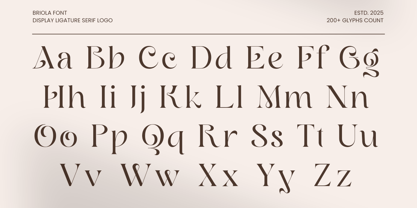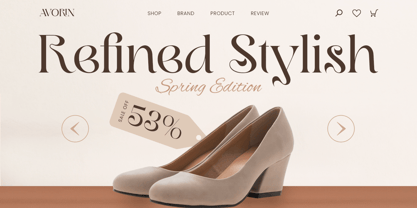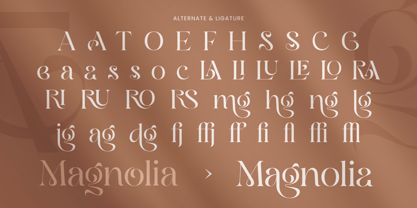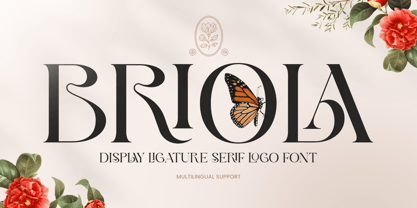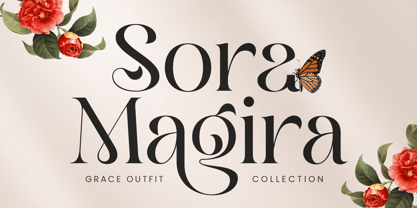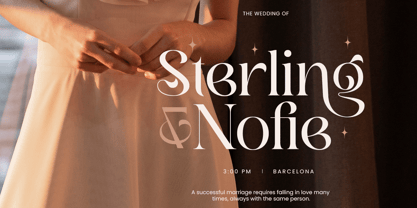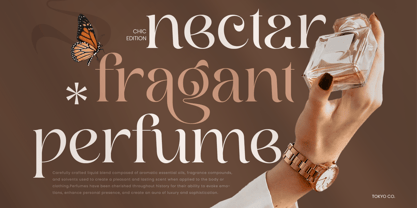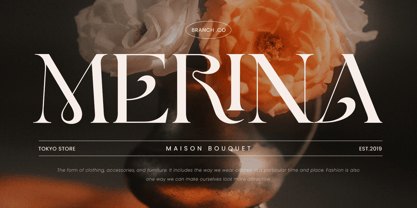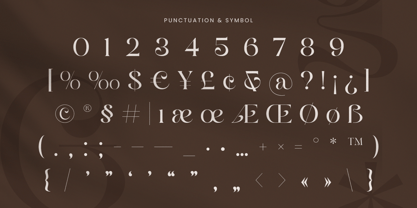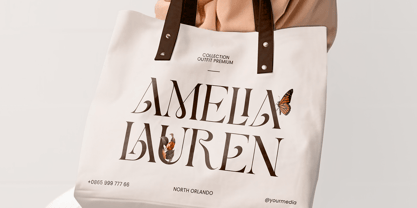
BRIOLA is a classy ligature serif logo font designed to deliver refined elegance with a distinctive, premium signature. With carefully crafted ligatures and balanced serif details, this typeface creates a sophisticated visual rhythm that feels luxurious, modern, and brand-ready.
Built for logo-focused typography, BRIOLA elevates wordmarks, brand identity systems, packaging, labels, website headers, editorials, invitations, and social media design. The ligature flow adds a bespoke touch—helping logos feel more custom, polished, and high-end across both digital and print applications.
Whether you’re shaping a fashion label, beauty brand, boutique identity, wedding stationery, or an upscale product line, BRIOLA provides a timeless serif foundation with classy ligature character—making your typography feel exclusive, elegant, and instantly recognizable.
Inspiration Behind BRIOLA
BRIOLA is inspired by luxury editorial typography and high-end logo design where subtle connections create a tailored, signature feel. The design focuses on elegant ligatures, refined serif structure, and smooth spacing to support premium branding, fashion-forward visuals, and sophisticated identity systems.
BRIOLA Font Features:
Classy ligature serif letterforms optimized for logo and wordmark design
Refined serif structure with elegant, premium character
Stylish ligatures for a bespoke boutique identity feel
High readability for headlines, branding, and editorial use
Uppercase, lowercase, numerals, and punctuation included
OpenType features for polished professional typesetting